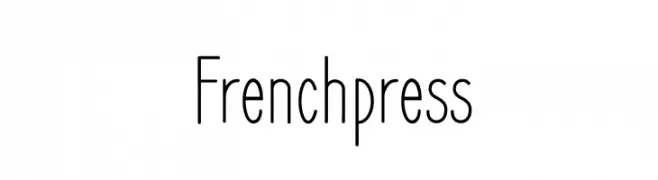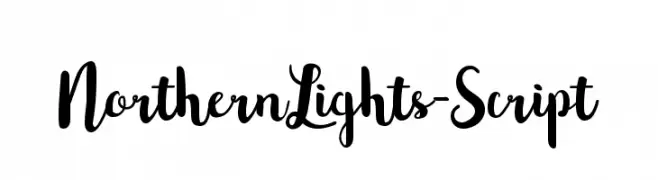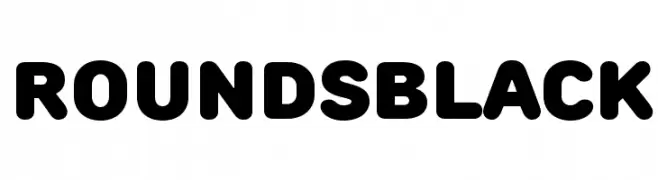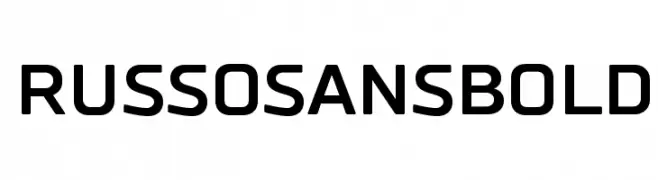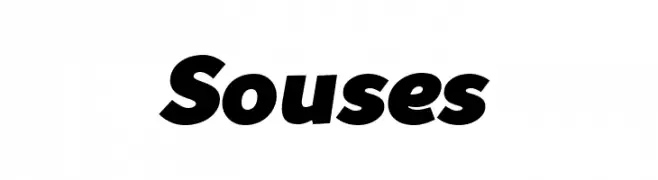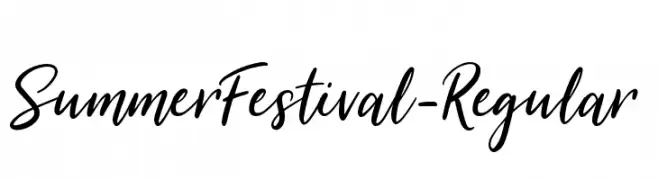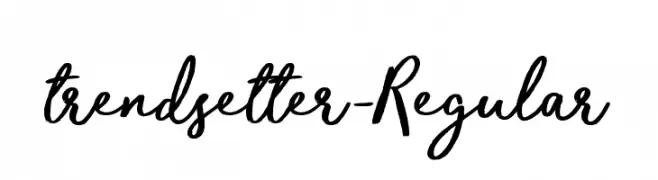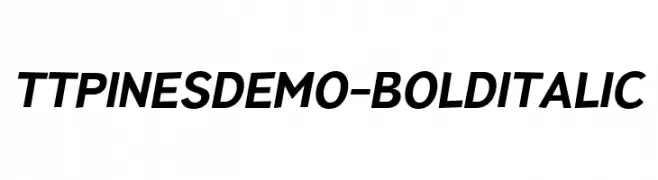
A bold, rounded font with smooth curves and a modern, friendly style.
A thin, whimsical font with a hand-drawn, organic feel.
A bold, modern sans-serif font with a geometric structure.
A whimsical, playful font with decorative curls and slender characters.
A bold, slanted font with a modern and dynamic style.
A bold, italicized font with a modern and dynamic style.
A lively handwritten font with fluid, cursive strokes and a modern, playful style.
A lively, cursive font with a natural handwritten style.